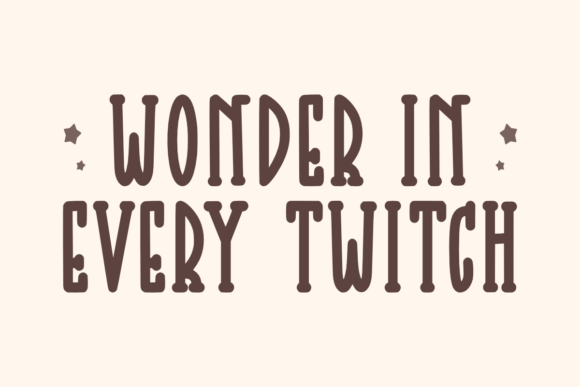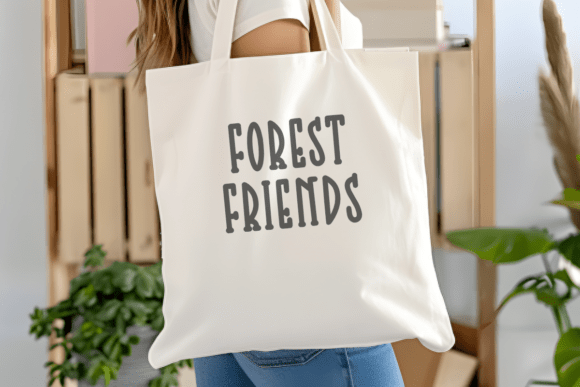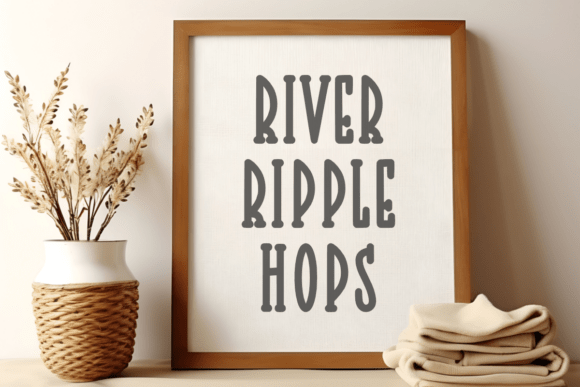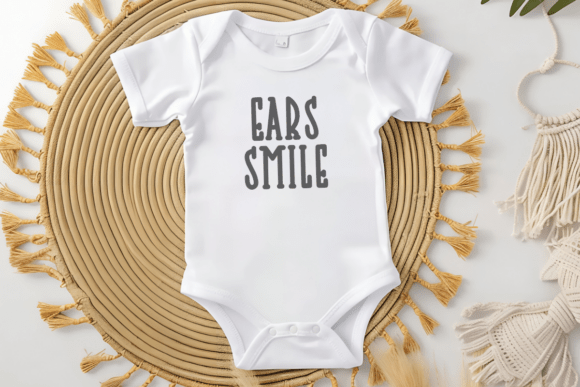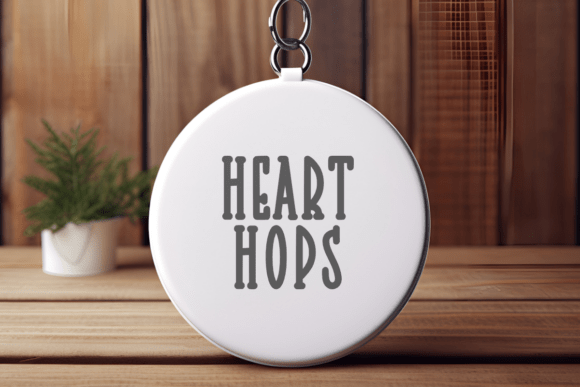
Introduction to Rabbit Whimsy Font
Rabbit Whimsy is a cute and minimalist slab serif font.
This font is perfect for greeting cards, wedding invitations, gift labels, mugs, t-shirts, quotes, labels, etc Use it to create spectacular and interesting designs.
Key Features of Rabbit Whimsy Font
Why Choose Rabbit Whimsy Font?
Rabbit Whimsy Font offers exceptional quality and versatility, making it a valuable addition to your design toolkit. Whether you’re creating for personal projects or commercial use, Rabbit Whimsy Font delivers professional results.